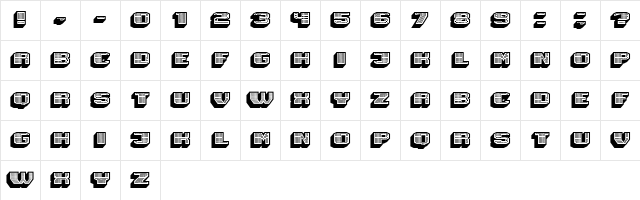
Complete Magia 3D Hollow-Neon glyph index. Displaying only characters natively supported by Magia 3D Hollow-Neon font.
Magia has a distinctly futuristic character, with geometric precision and clean angles that feel at home in technology, gaming, and sci-fi contexts.